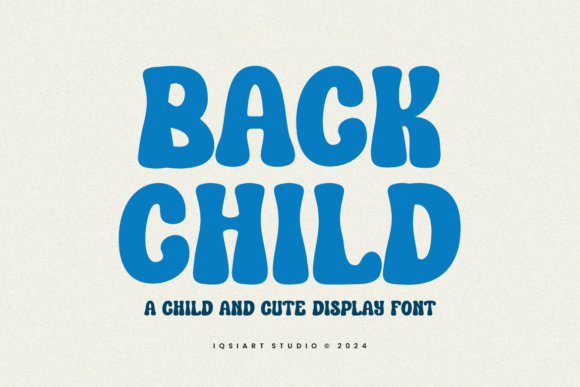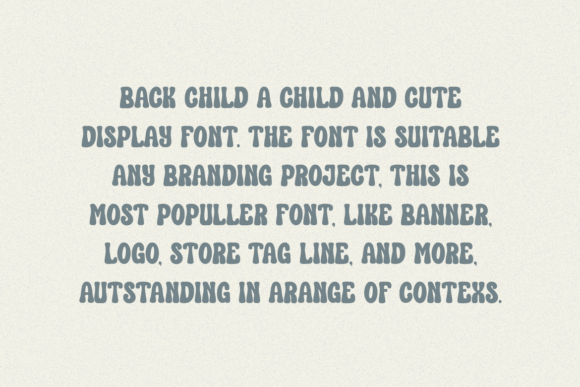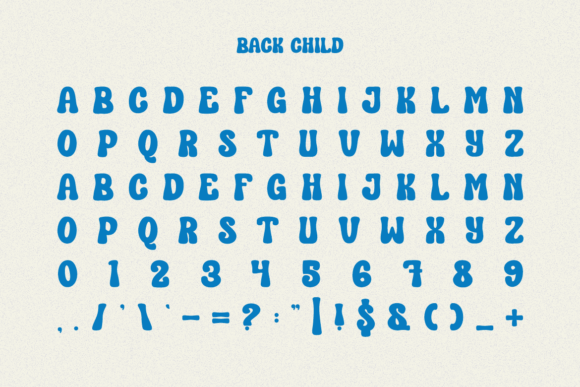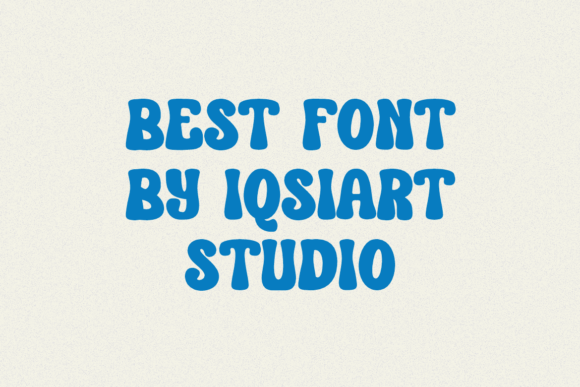
Back Child Font: A Fun & Bubbly Display Font for Cute Designs
About the Back Child Font
Make a bold statement with Back Child Font, a powerful and memorable font. Back Child is a fun and bubbly display font designed for children’s projects and playful designs. With soft, rounded characters and a cheerful vibe, it’s great for storybooks, toys, educational content, and anything that needs a warm and joyful look.
Back Child Font excels in headlines, short playful taglines, and children’s book titles where its bubbly character shines. It’s also well-suited for branding projects targeting a young audience, such as toy packaging or children’s clothing labels. However, its low x-height and rounded forms make it less legible for body text or long paragraphs. Avoid using it in UI contexts or situations requiring high readability.
Pairing Back Child with a clean sans-serif like Open Sans for body text creates a strong contrast and improves overall readability. For a more sophisticated feel, consider pairing it with a delicate script font for added elegance, or a geometric sans-serif for a modern, playful twist.
The font’s core personality is undeniably cheerful and friendly, conveying warmth and approachability. It is best used in designs where a sense of fun and youthful energy is paramount.
Back Child Font Usage Examples
Back Child Font Example